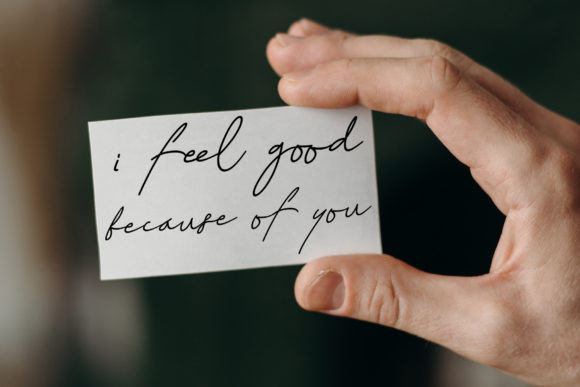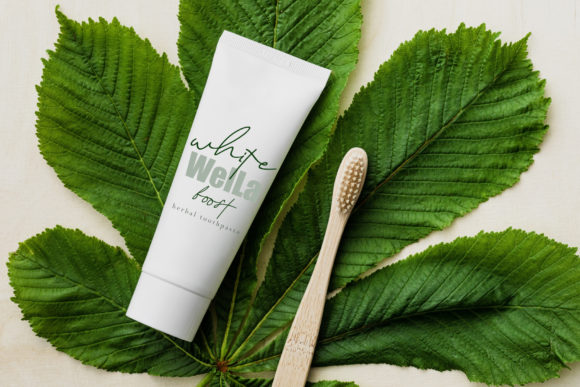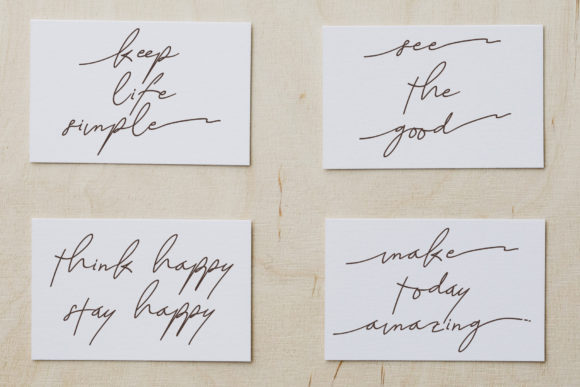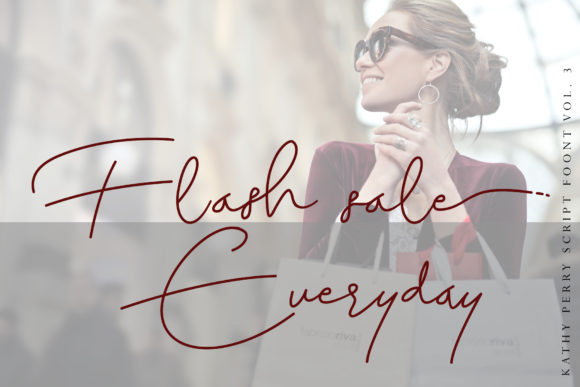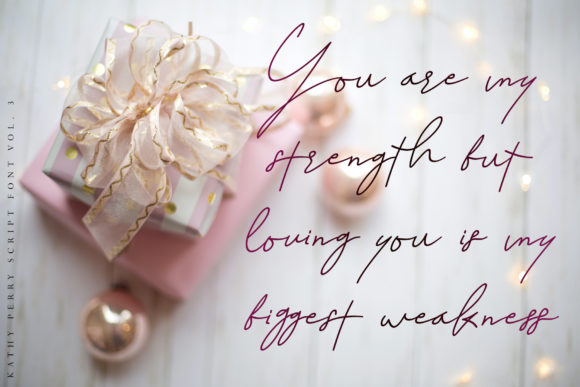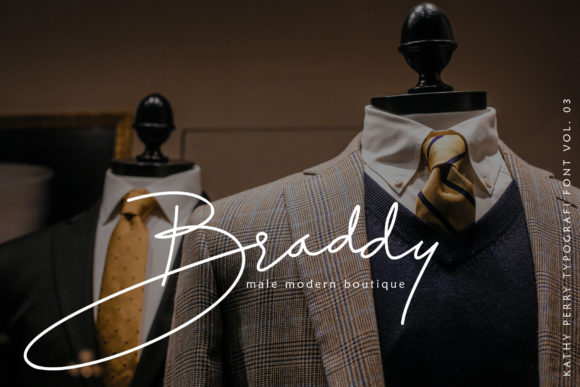
Introduction to Kathy Perry Font
Have you ever stared at a blank canvas, trying to bring your creative project to life, only to feel stuck? That’s when I discovered the magic of the Kathy Perry Font – a lovely and timeless handwritten font that instantly breathed new life into my design.
As a designer, you understand the importance of having the right tools at your fingertips. That’s why I’m excited to share with you the value of the Kathy Perry Font, a high-quality design resource that’s perfect for creating eye-catching logos, branding, and quotes. With its PUA encoded feature, you can access all the glyphs and swashes with ease, making it a valuable addition to your design arsenal.
Key Features of Kathy Perry Font
- Unique, high-quality design perfect for creative projects requiring a touch of elegance.
- Transparent background option for seamless integration with various design elements.
- Includes a range of font sizes, from 12pt to 72pt, to suit various design needs.
- High-resolution font files (300 DPI) for crisp and clear display in both digital and print media.
- Perfect for use in logos, branding materials, and other design projects requiring a sophisticated touch.
Honest Review: Kathy Perry Font
I recently stumbled upon the Kathy Perry Font while searching for a free design resource to elevate my creative project. I must say, I was impressed by its high quality and versatility.
- ✨ Unique and playful design style that adds a touch of whimsy to any project
- ✨ Clear and legible font, making it perfect for body text or headings
The Kathy Perry Font features a transparent background, allowing for seamless integration with any design element. I appreciate the font’s flexibility and ability to adapt to various design contexts.
- ⚠️ Limited character set, which may be a concern for designers working on projects that require a wide range of special characters
- ⚠️ Not suitable for formal or professional applications, as its playful design may not convey the desired level of seriousness
Overall, I’m quite pleased with the Kathy Perry Font and would recommend it to designers looking for a free and high-quality design resource. Its limitations are minor, and its benefits far outweigh them.
The Kathy Perry Font is a unique and stylish design resource, perfect for adding a touch of elegance to your creative project. This high-quality font features a transparent background, making it ideal for use in a variety of design applications.
In Microsoft PowerPoint or Word, select the Kathy Perry Font from the font library and apply it to your text. You can use it to create professional-looking presentations or documents.
For the best results, use the Kathy Perry Font in conjunction with a high-quality image or background. This will help to create a cohesive and visually appealing design.
The Kathy Perry Font is perfect for a variety of design projects, including:
Business cards and marketing materials
Social media graphics and advertising
Event signage and promotional materials